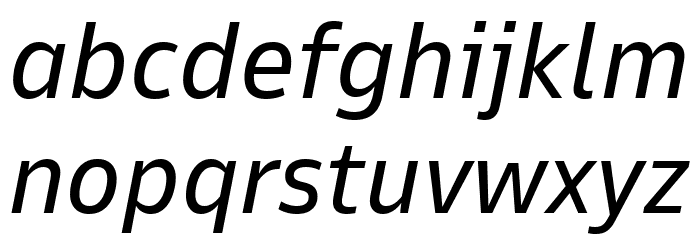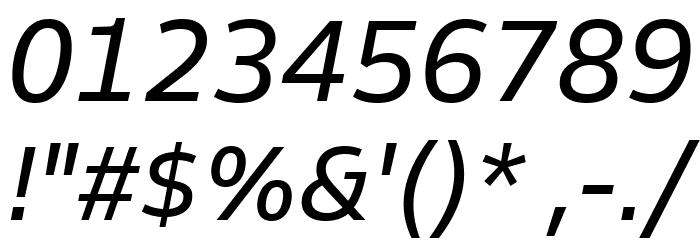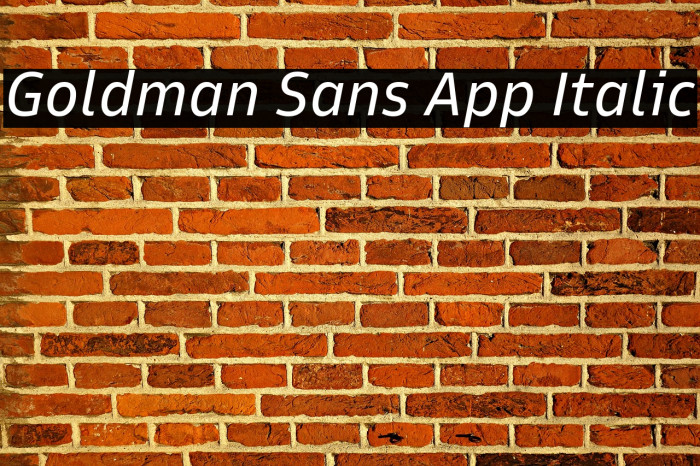
Goldman Sans App Italic Font
This font features a clean, modern sans-serif style with a slight italic slant, giving it a dynamic and contemporary appearance. The characters are well-proportioned with a consistent stroke width, contributing to its readability and versatility. The uppercase letters are bold and assertive, while the lowercase letters maintain a friendly and approachable look. The numerals are clear and distinct, making them suitable for various applications. Special characters are designed to match the overall aesthetic, ensuring a cohesive look across all text elements.
A modern, italic sans-serif font with clean lines and excellent readability.
- Proposed Projects: Ideal for digital interfaces, corporate branding, and editorial design where a modern and professional look is desired.